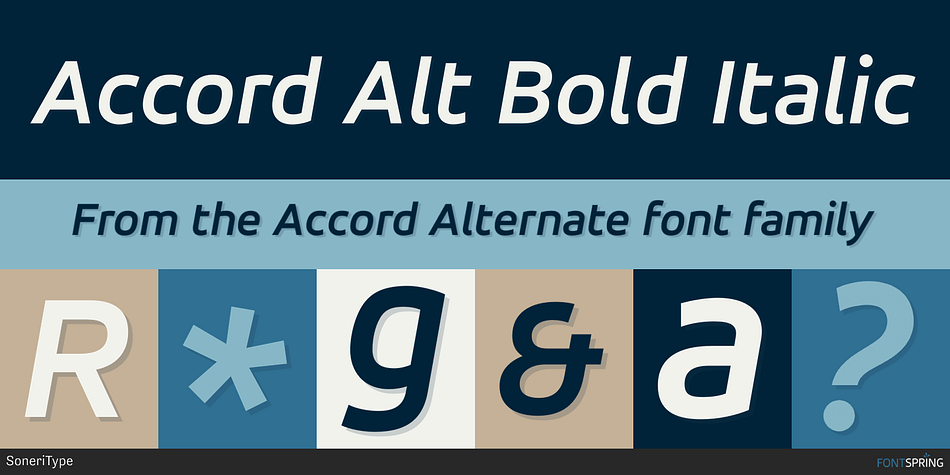
Accord Alt Bold Italic
Accord Alternate is a sans serif font family. This typeface has fourteen styles and was published by SoneriType.
Accord Alternate is a companion of Accord which comes with some modification in the lowercase of Accord character set.
Accord Alternate is a companion of Accord which comes with some modification in the lowercase of Accord character set. The details which are not visible in the small size text generally in the screen have been eliminated in the Accord Alternate, which gives the type a contemporary san serif look. Eliminating the details which are not visible at small size in screen, increases the size of letterform’s counters which result in increased readability and gives contemporary look.